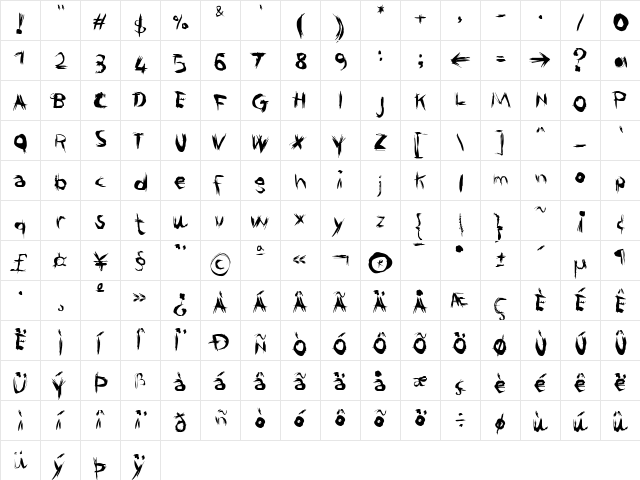
Graffio Regular
Design Context for Graffio Typeface
Graffio is a composed and adaptable typeface that performs quietly and consistently across a wide range of design contexts.